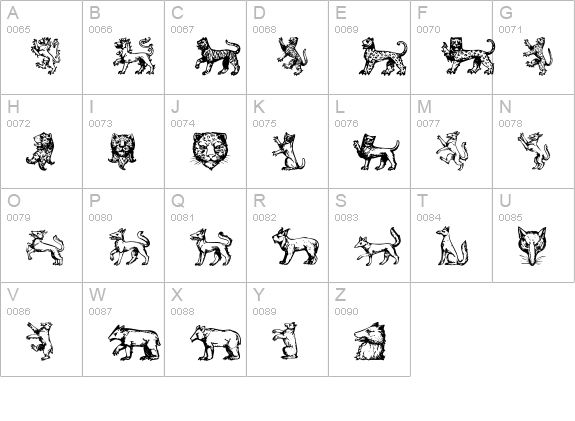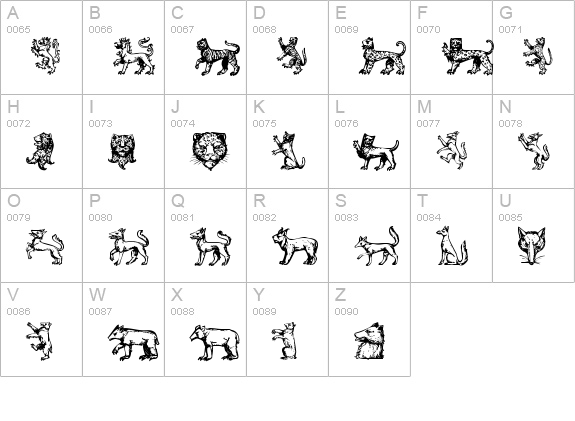
Beasts Font Details
Beasts font is a bold and striking typeface that exudes a sense of power and strength. Its sharp edges and intricate details give it a wild and untamed aesthetic, perfect for making a bold statement in your designs. With its unique character design, Beasts font is sure to capture attention and leave a lasting impression. This versatile font is ideal for a variety of projects, from branding to posters to apparel design. Whether you're looking to add a touch of fierceness to your work or make a strong visual impact, Beasts font has got you covered. The best part? Beasts font is freely available to download at FontsMarket.com. So go ahead and unleash your creativity with this captivating typeface today!